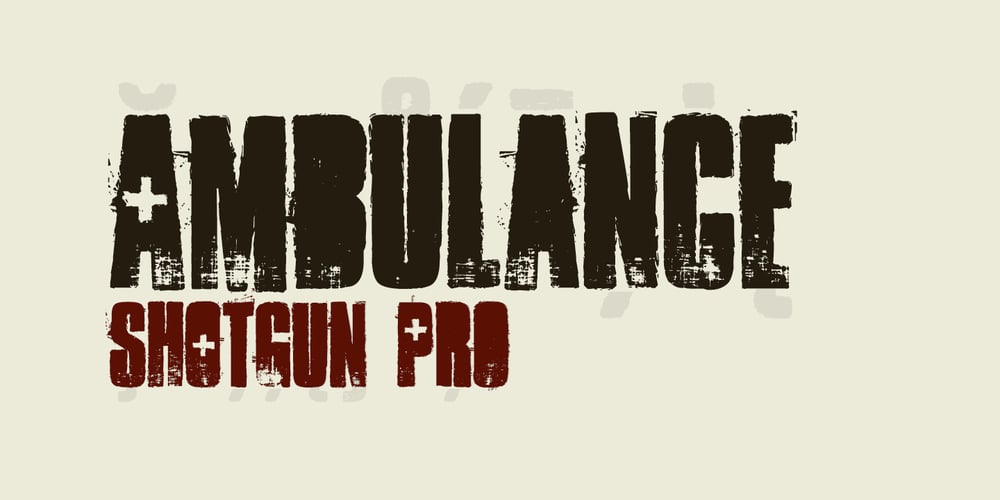
Ambulance Shotgun Pro Font Family was designed by Roger S. Nelsson, Guillaume Séguin and published by CheapProFonts. Ambulance Shotgun Pro contains 1 styles and family package options. Another grungy masterpiece from Guillaume – this one with a woodprint touch. I have made the lowercase letters different from the uppercase by removing the cross-shaped counters and flipping where possible. Even the numbers have solid variants – available as OpenType “Stylistic Alts”. Enjoy the new flexible possibilities! ALL fonts from CheapProFonts have very extensive language support: They contain some unusual diacritic letters (some of which are contained in the Latin Extended-B Unicode block) supporting: Cornish, Filipino (Tagalog), Guarani, Luxembourgian, Malagasy, Romanian, Ulithian and Welsh. They also contain all glyphs in the Latin Extended-A Unicode block (which among others cover the Central European and Baltic areas) supporting: Afrikaans, Belarusian (Lacinka), Bosnian, Catalan, Chichewa, Croatian, Czech, Dutch, Esperanto, Greenlandic, Hungarian, Kashubian, Kurdish (Kurmanji), Latvian, Lithuanian, Maltese, Maori, Polish, Saami (Inari), Saami (North), Serbian (latin), Slovak(ian), Slovene, Sorbian (Lower), Sorbian (Upper), Turkish and Turkmen. And they of course contain all the usual “western” glyphs supporting: Albanian, Basque, Breton, Chamorro, Danish, Estonian, Faroese, Finnish, French, Frisian, Galican, German, Icelandic, Indonesian, Irish (Gaelic), Italian, Northern Sotho, Norwegian, Occitan, Portuguese, Rhaeto-Romance, Sami (Lule), Sami (South), Scots (Gaelic), Spanish, Swedish, Tswana, Walloon and Yapese.